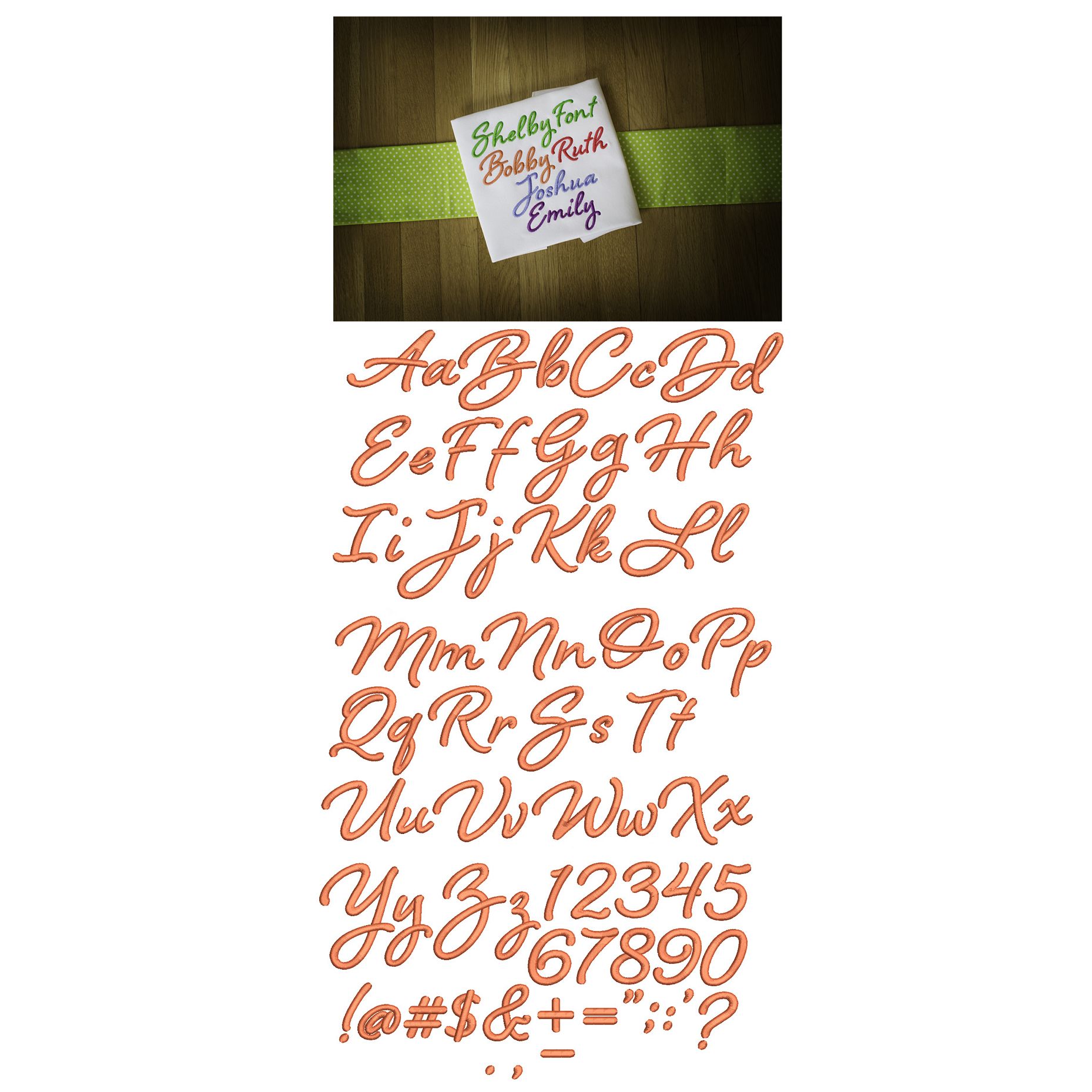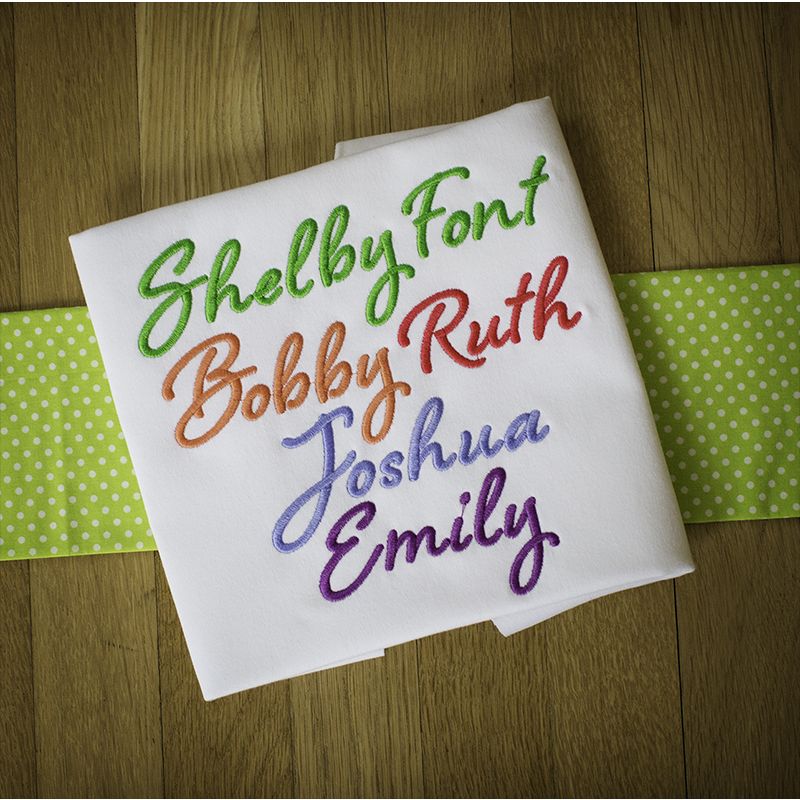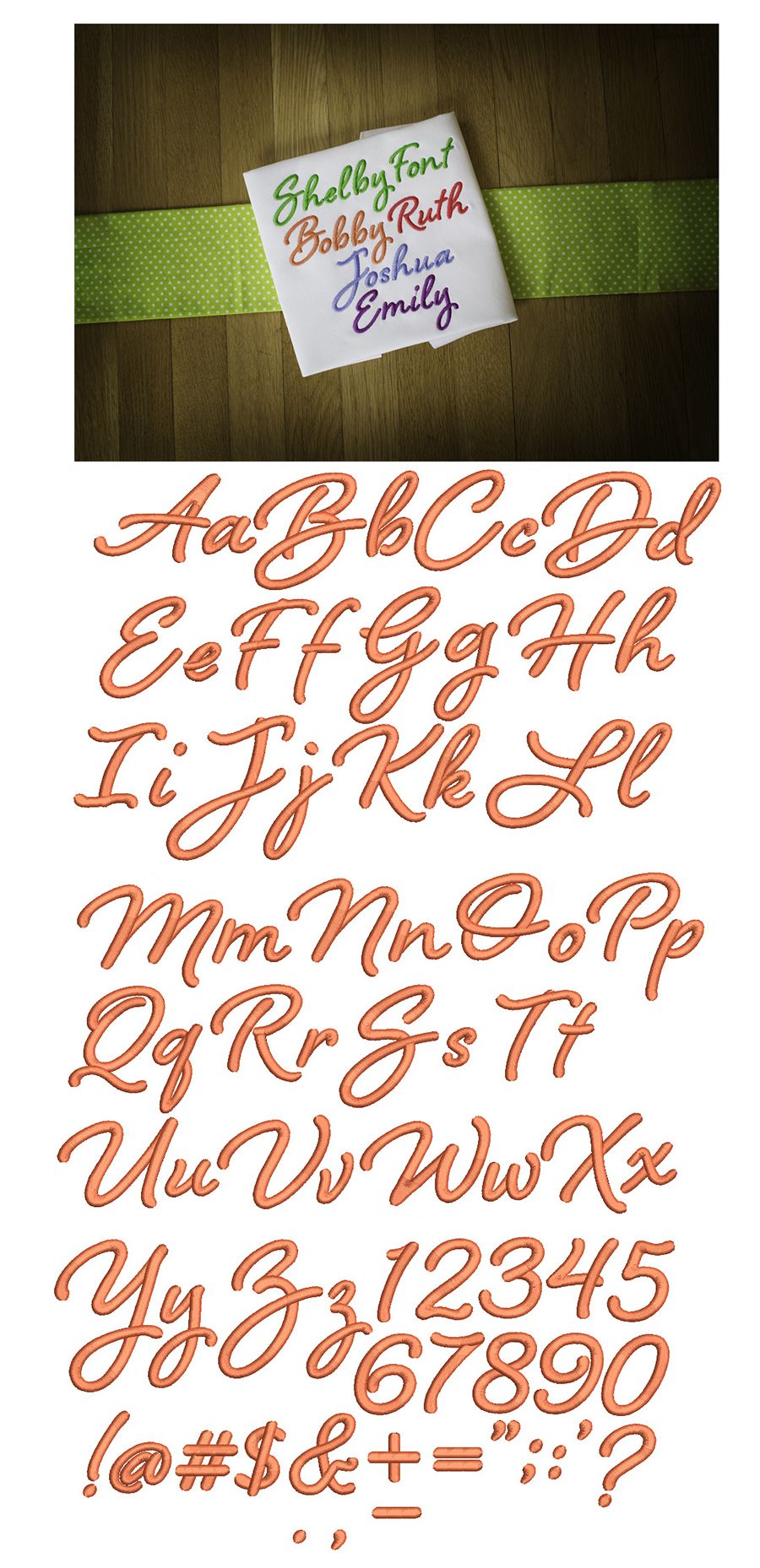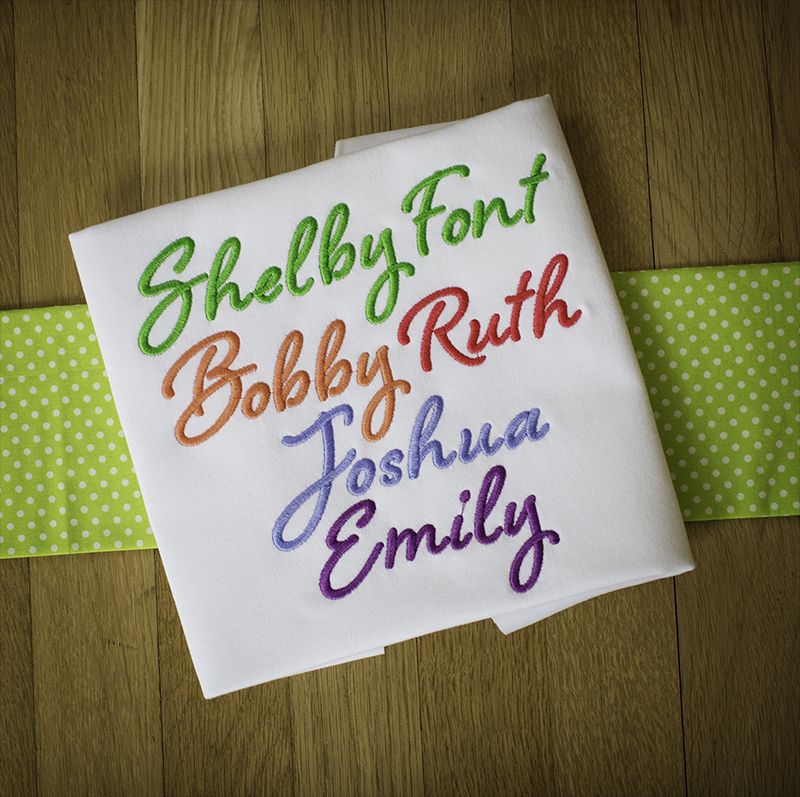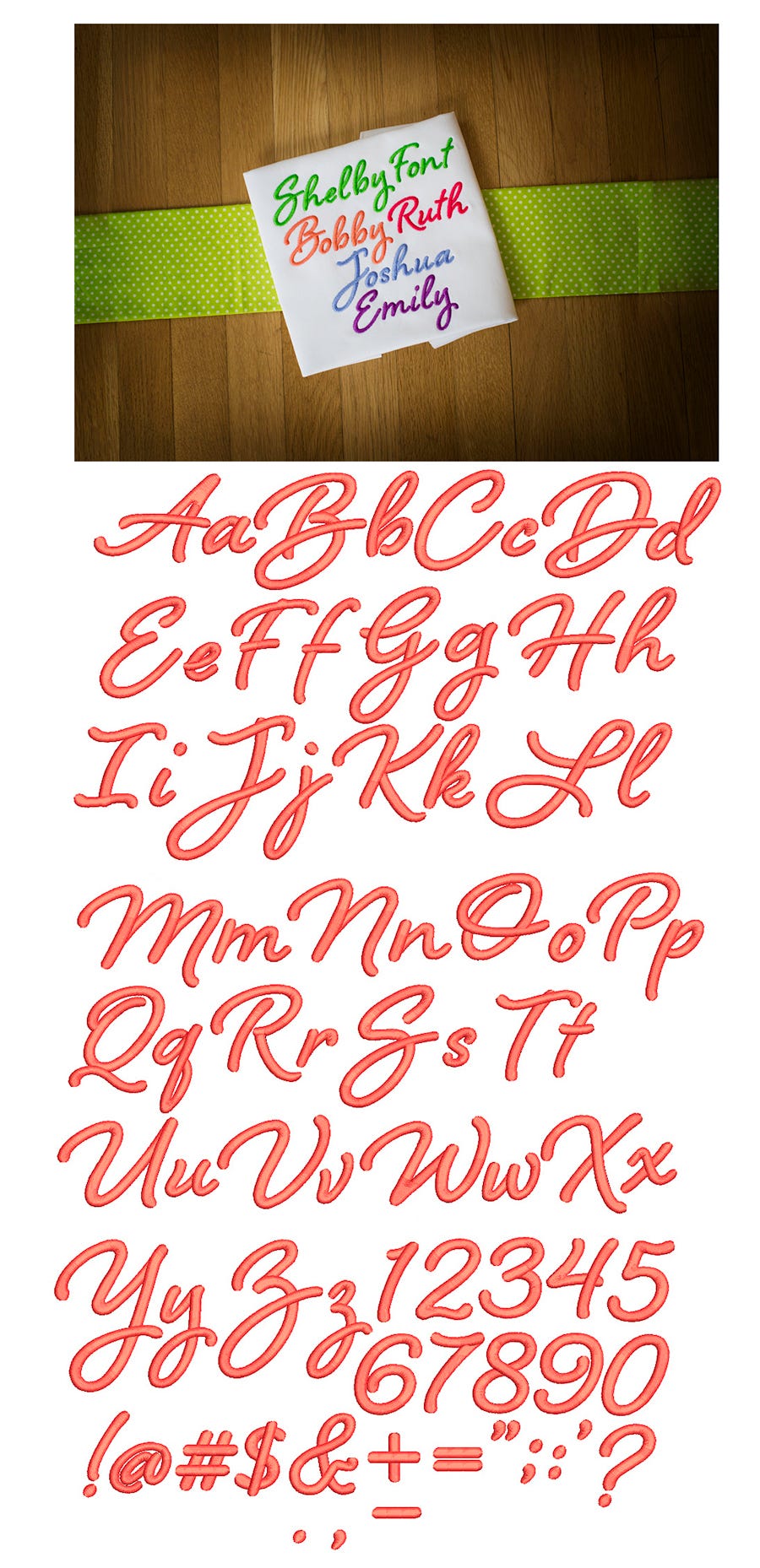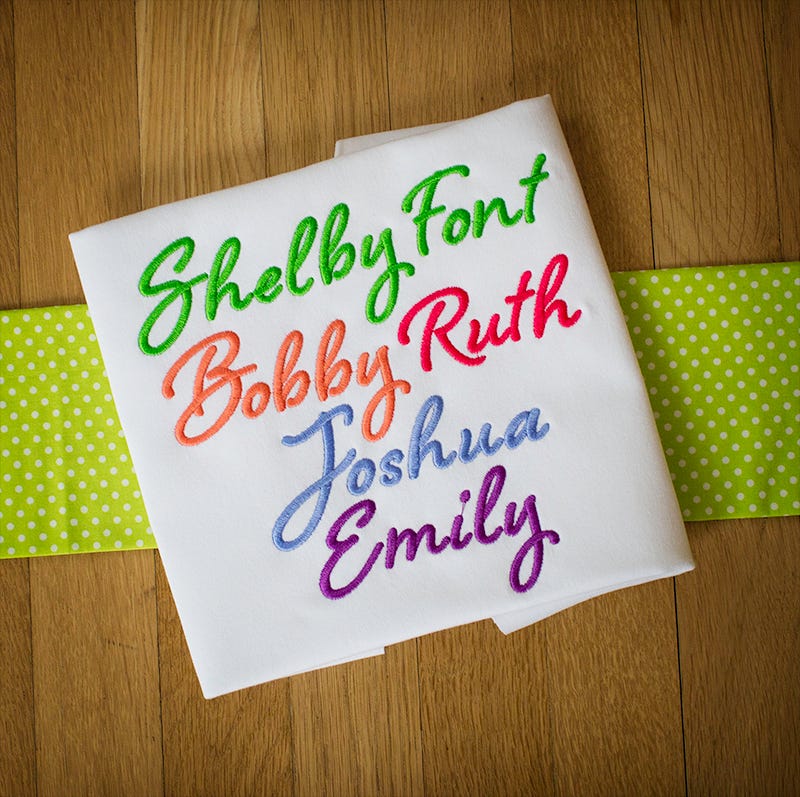
Shelby Satin Stitch Embroidery Font
I love this font! A fun and whimsical brush script. Great for a variety of projects.All of our fonts are 100% manually digitized to ensure the highest quality.